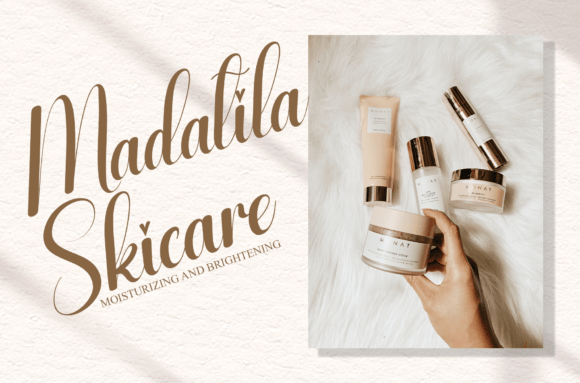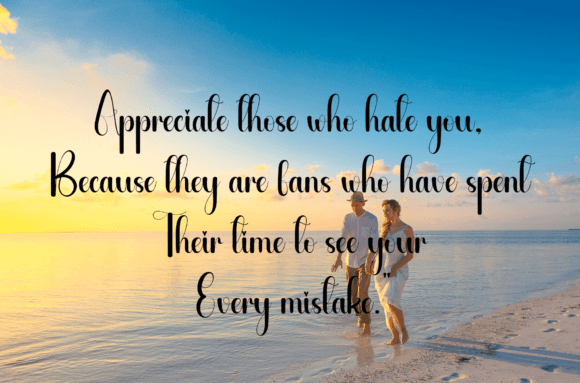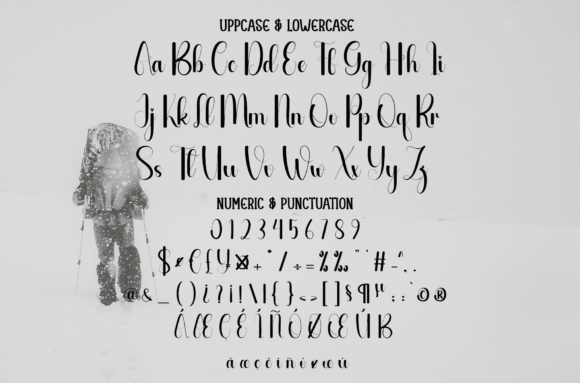
Unleash the Joy of Handwritten Design with Expedition Font
Have you ever sat down with a blank piece of paper and a pen, waiting for inspiration to strike? You start scribbling, letting your thoughts flow onto the page, and before you know it, you’ve created something truly unique. That’s the magic of handwritten design, and it’s exactly what the Expedition Font captures.
This charming handwritten font is perfect for adding a personal touch to your designs. Whether you’re crafting wedding invitations, cards, or any other project that needs a dash of whimsy, Expedition Font is sure to bring a smile to your face and your audience’s faces.
For designers, Expedition Font is a valuable asset. Its versatility and playfulness make it an ideal choice for a wide range of projects, from casual greeting cards to more formal wedding invitations. With Expedition Font, you can add a touch of personality to your designs and make them truly unforgettable.
Expedition Font Key Features
- Character Count: This font family features a total of 360 characters, including uppercase and lowercase letters, numerals, punctuation, and special symbols.
- Unique Characteristics: The font’s distinctive blend of modern and vintage elements, along with its high x-height and open apertures, makes it particularly well-suited for use in outdoor and adventure-themed designs.
Expedition Font Review
As a designer, I’ve had the chance to work with Expedition Font, and I must say it’s an interesting typeface. Here’s my honest review:
- ✨ The font has a unique, adventurous feel to it, making it perfect for outdoor-related projects, travel websites, or even book covers.
- ✨ The bold weight is excellent for headlines, and the regular weight is suitable for body text.
- ✨ The font’s x-height is well-balanced, making it easy to read, even at smaller font sizes.
- ⚠️ The font’s italic and oblique styles are not as polished as the regular and bold weights.
- ⚠️ Some characters, like the ‘g’ and ‘q’, can be tricky to read in certain contexts.
- ⚠️ The font’s kerning could be improved, especially for certain character combinations.
Overall, Expedition Font is a solid choice for projects that require a rugged, adventurous feel. While it’s not perfect, it’s a great addition to any designer’s toolkit. With some careful selection and adjustment, you can achieve fantastic results with this font. Just be aware of its limitations and plan accordingly.
Tips for Getting the Most Out of Expedition Font
Use Expedition Font for titles, headings, and other emphasis text to create a sense of adventure and exploration.
Combine Expedition Font with other bold, sans-serif fonts to create a unique and eye-catching visual style.
Experiment with different font sizes and colors to create visual hierarchy and draw attention to important information.
Expedition Font is ideal for:
Travel and adventure-related projects
Outdoor and sports-related projects
Educational and informative projects
Any project that requires a sense of excitement and exploration